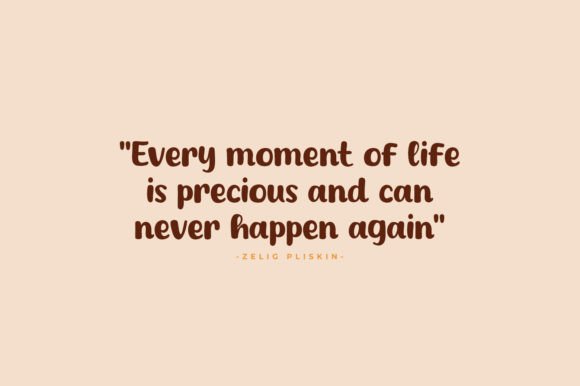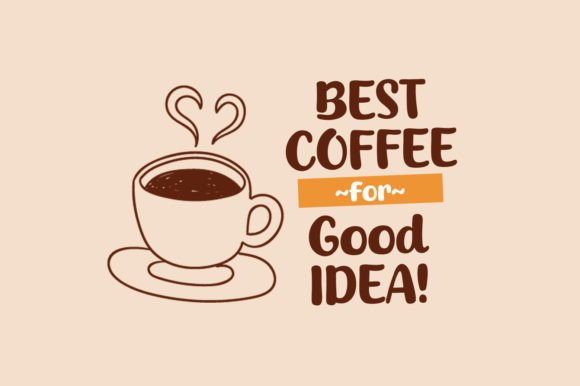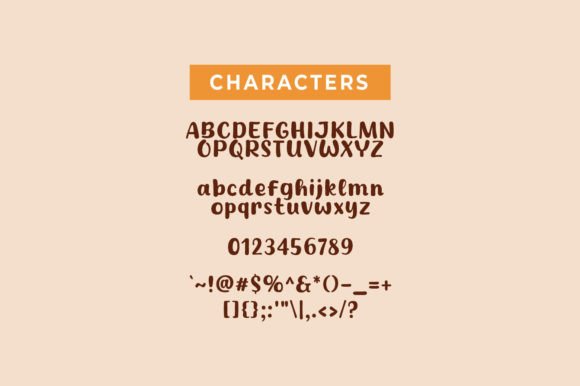
Coffee Fills Font: The Perfect Addition to Your Design Arsenal
Are you a designer or crafter looking for a unique and versatile font to elevate your creative projects? Look no further than Coffee Fills Font! This modern and cute display font is perfect for a wide range of applications, from posters and logos to magazines, book covers, and banners. In this article, we’ll dive into the features and benefits of Coffee Fills Font, and explore how it can help take your designs to the next level.
A Modern and Cute Display Font
Coffee Fills Font is a modern and cute display font that is sure to capture attention. Its playful and charming design makes it perfect for projects that require a friendly and approachable tone. Whether you’re creating a poster for a coffee shop, a logo for a fashion brand, or a book cover for a children’s book, Coffee Fills Font is the perfect choice.
One of the best things about Coffee Fills Font is its versatility. It can easily be matched to an incredibly large set of projects, making it a valuable addition to your design arsenal. Here are just a few examples of the many projects that Coffee Fills Font is perfect for:
- Posters: Coffee Fills Font is perfect for creating eye-catching posters for coffee shops, restaurants, and other businesses.
- Logos: The font’s modern and cute design makes it perfect for creating logos for fashion brands, beauty companies, and other businesses that want to appear friendly and approachable.
- Magazines: Coffee Fills Font is a great choice for magazine headlines, articles, and advertisements.
- Book Covers: The font’s playful design makes it perfect for book covers, especially for children’s books, romance novels, and other genres that require a friendly and approachable tone.
- Banners: Coffee Fills Font is perfect for creating eye-catching banners for websites, social media, and other online platforms.
Why Choose Coffee Fills Font?
So why choose Coffee Fills Font over other fonts on the market? Here are just a few reasons:
- Unique Design: Coffee Fills Font has a unique and playful design that is sure to capture attention.
- Versatility: The font is perfect for a wide range of projects, making it a valuable addition to your design arsenal.
- Easy to Use: Coffee Fills Font is easy to use and can be easily matched to a wide range of projects.
Tips for Using Coffee Fills Font
Here are a few tips for using Coffee Fills Font in your designs:
- Pair it with Other Fonts: Coffee Fills Font pairs well with other fonts, especially sans-serif fonts like Arial and Helvetica.
- Use it for Headlines: Coffee Fills Font is perfect for headlines and titles, especially for projects that require a friendly and approachable tone.
- Experiment with Colors: Coffee Fills Font looks great in a variety of colors, so don’t be afraid to experiment and find the perfect color for your project.